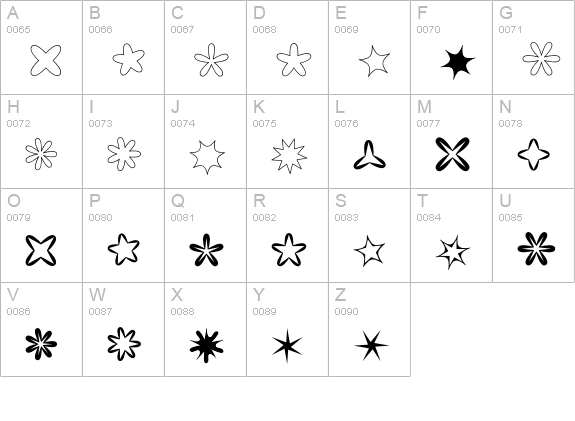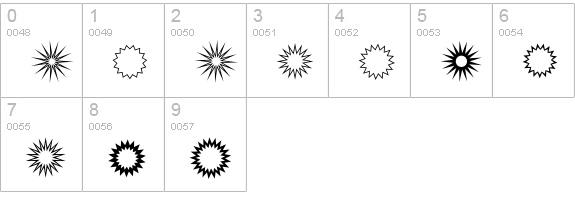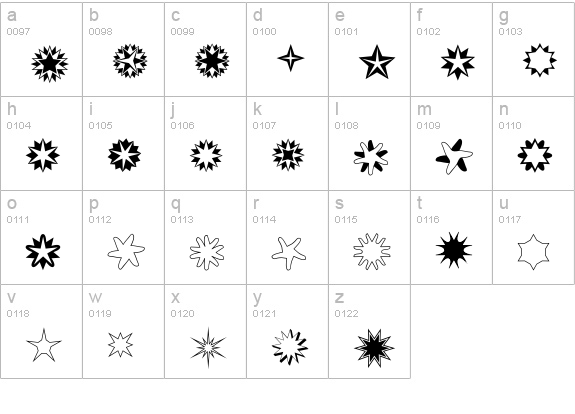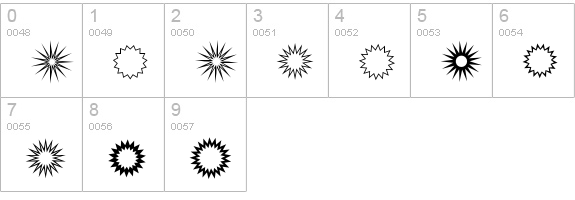
Chrismasstars Font Details
Introducing the enchanting Chrismasstars font, a delightful typeface perfect for adding a touch of holiday magic to your designs. This whimsical font features charming star-shaped letters that evoke the festive spirit of Christmas. With its playful and decorative style, Chrismasstars is sure to bring joy and cheer to any project. The best part? Chrismasstars is completely free to download! You can get your hands on this merry font at FontsMarket.com and start spreading the holiday cheer in your designs. Whether you're creating greeting cards, invitations, posters, or any other festive project, Chrismasstars is the perfect choice to make your text shine bright like a Christmas star. Add a sprinkle of magic to your designs with Chrismasstars font today!